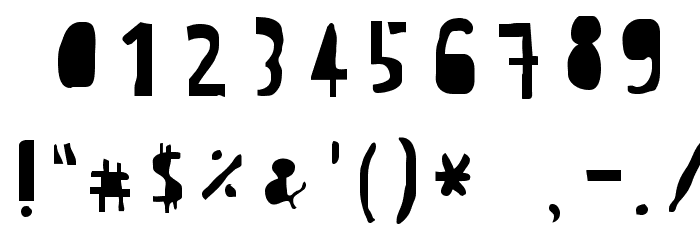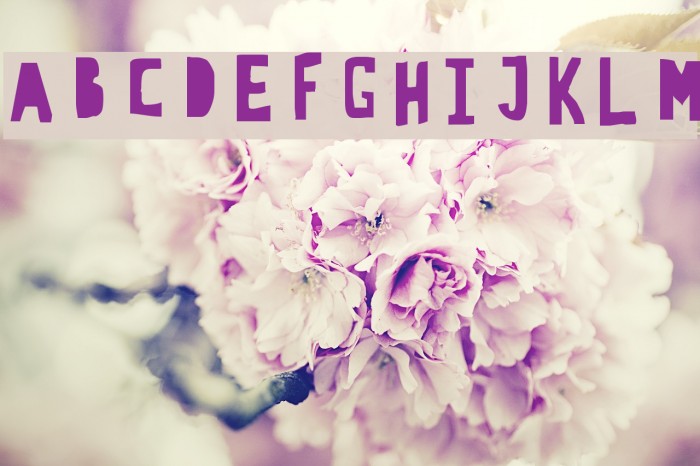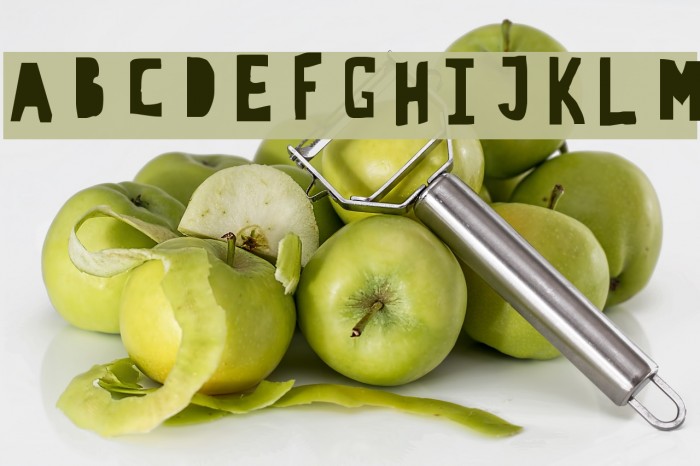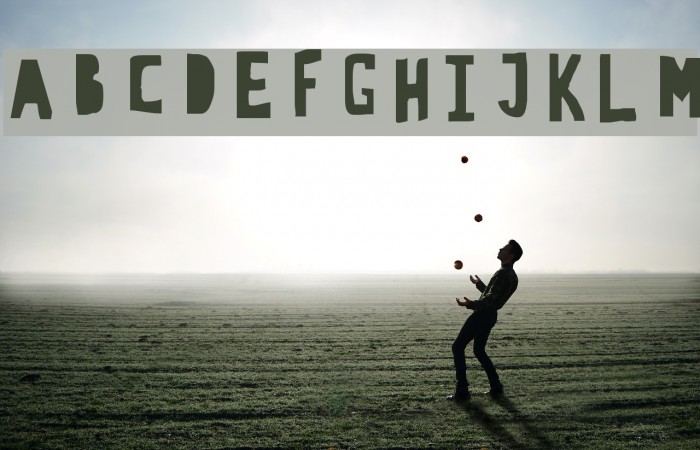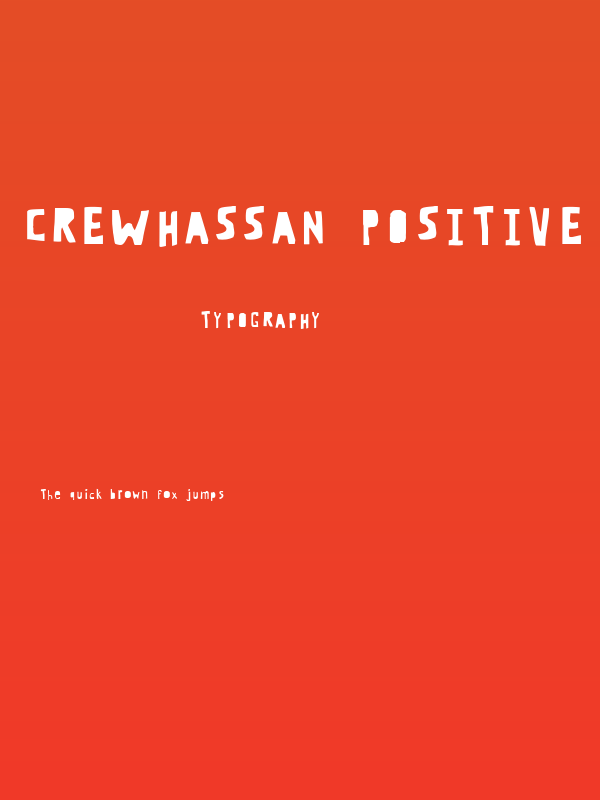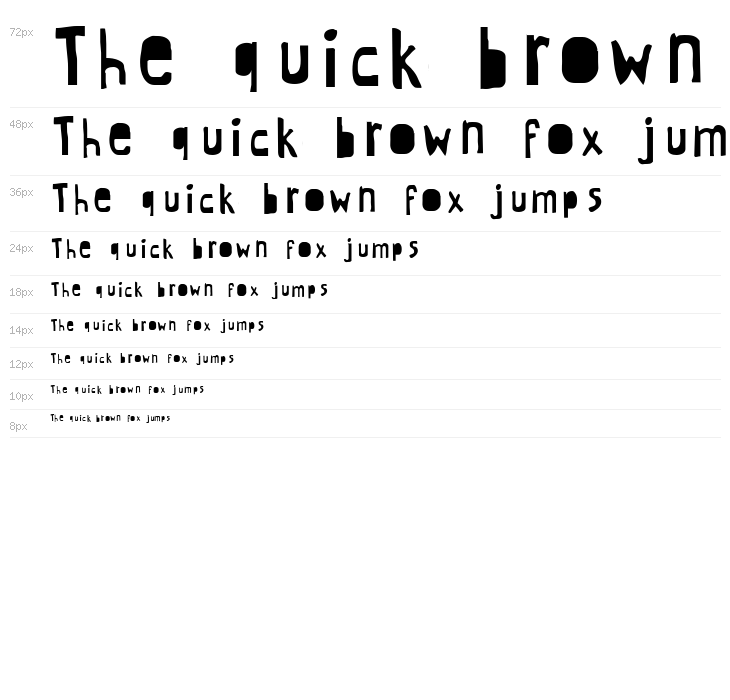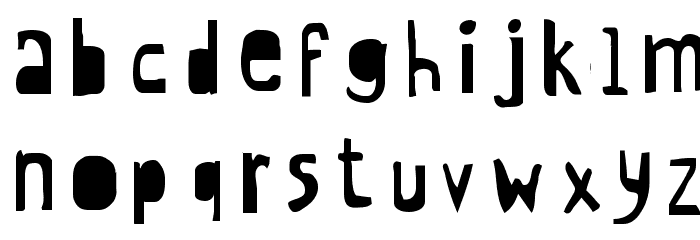
CrewHassan positive Font
CrewHassan positive Description
This font features a bold and playful design with irregular, hand-drawn characteristics. The uppercase letters are blocky and robust, while the lowercase letters maintain a quirky, uneven style that adds a unique charm. The numbers and special characters follow the same playful aesthetic, making the font suitable for creative and informal applications. Its distinctive style is reminiscent of hand-painted signage, offering a sense of individuality and artistic flair. The font's boldness ensures readability, while its irregularities provide a dynamic and engaging visual experience.
| Overall Style | Playful, Artistic |
| Proposed Projects | Ideal for posters, children's books, creative branding, and artistic projects. |